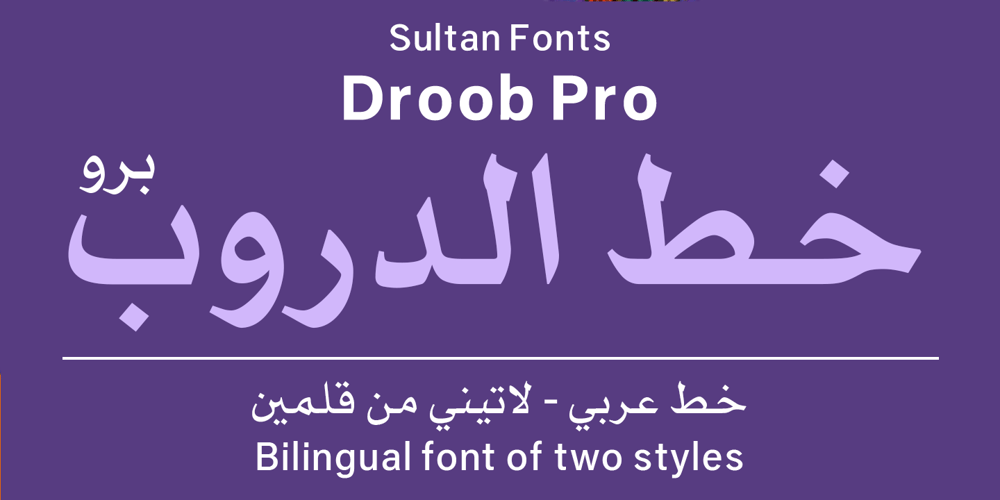
SF Droob Pro
SF Droob Pro font
SF Droob Pro Font Family was designed by Sultan Maqtari and published by Sultan Fonts. SF Droob Pro contains 2 styles and family package options. Droob Pro is a Latin Arabic typeface for print and web, an upgraded version of the Droob7 font, featuring clarity and high readability.The Droob Pro font family contains two weights: Regular and Bold.This font supports Arabic, Latin, Farsi, Urdu, and Kurdish.